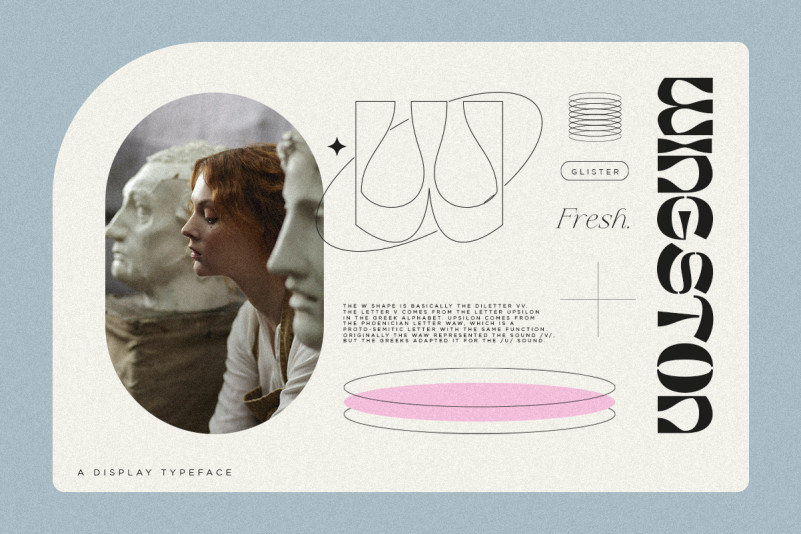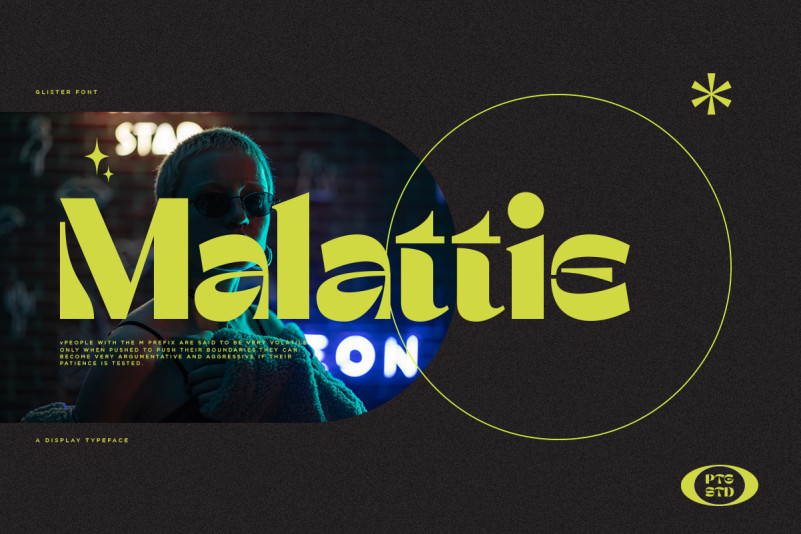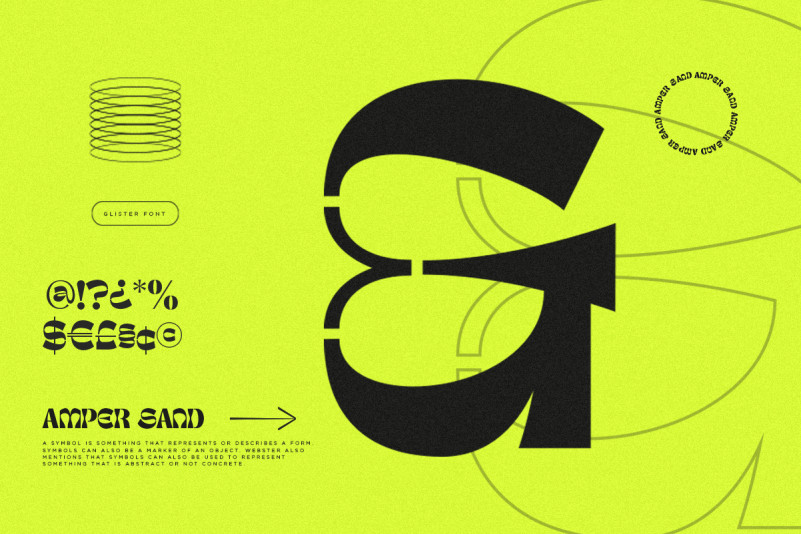
Glister Font
Glister Display Font Is An Stylish Display Character Inspired By Cheek Style. This font is perfect for editorial design, logos, branding, posters, magazines, shirts, mugs, social media, quotes, procreate designs and more!